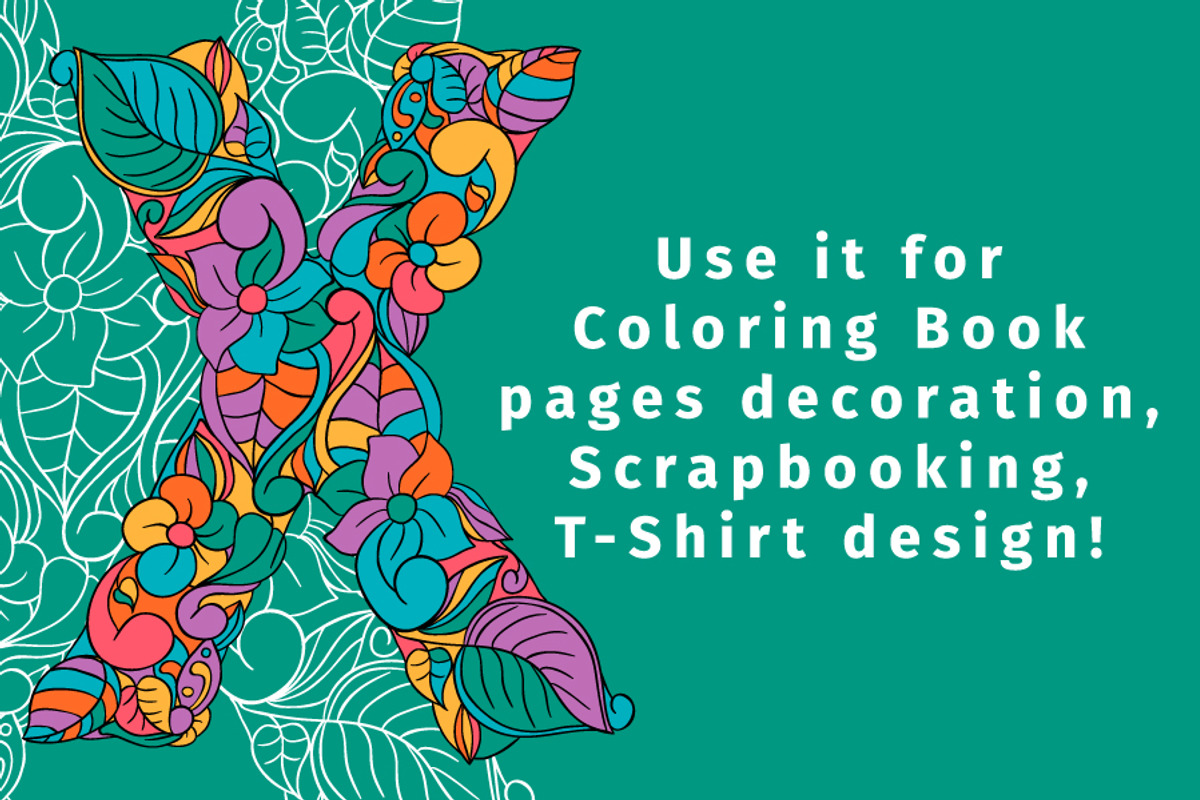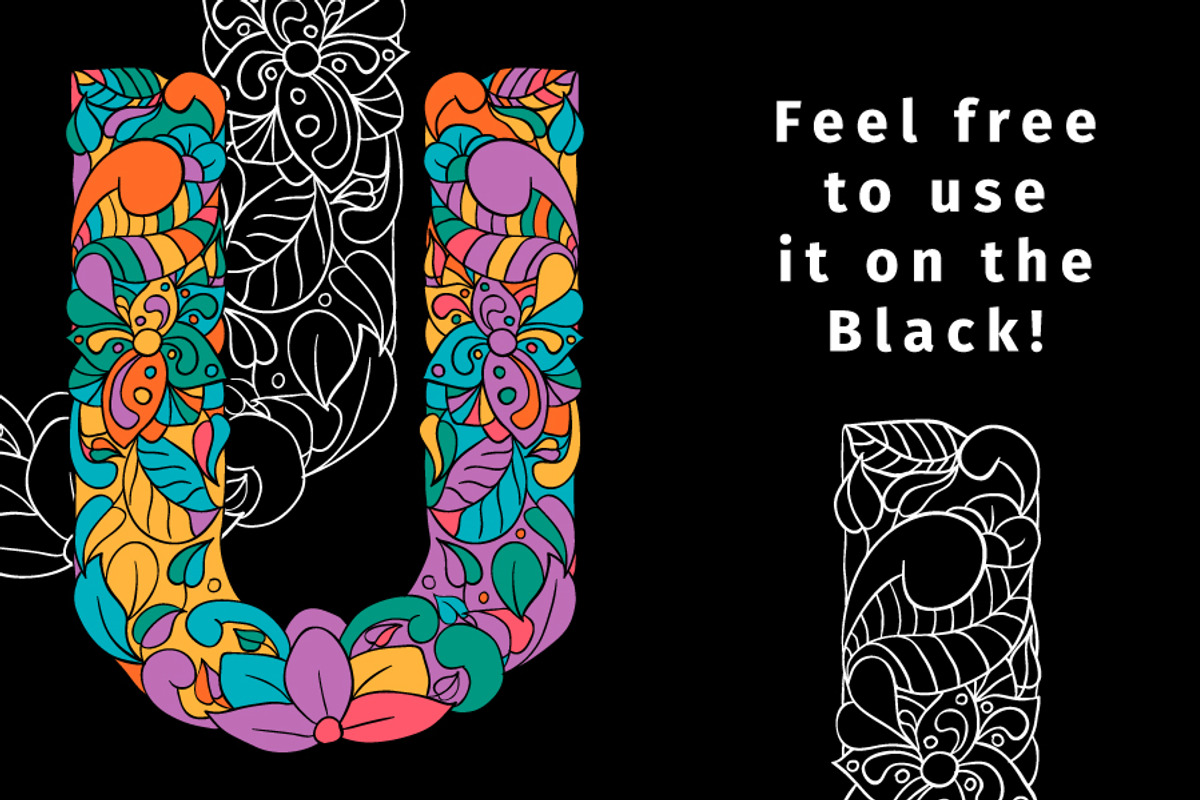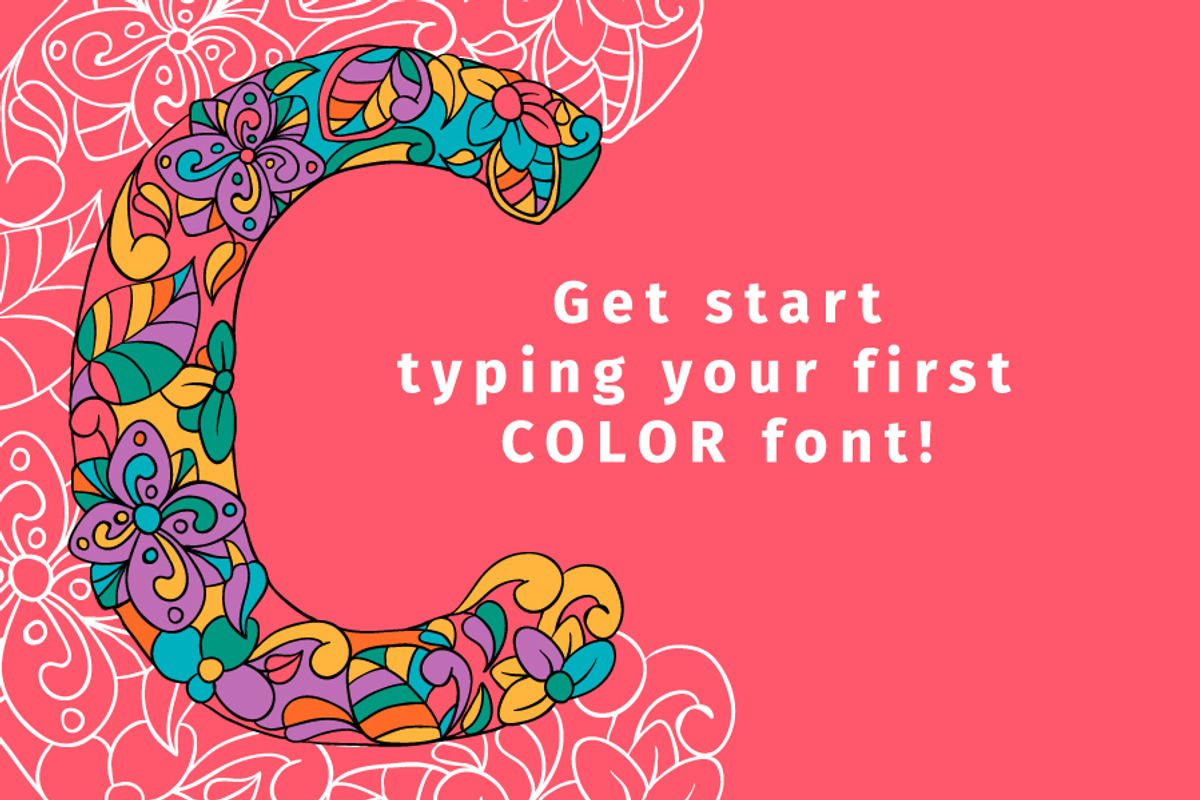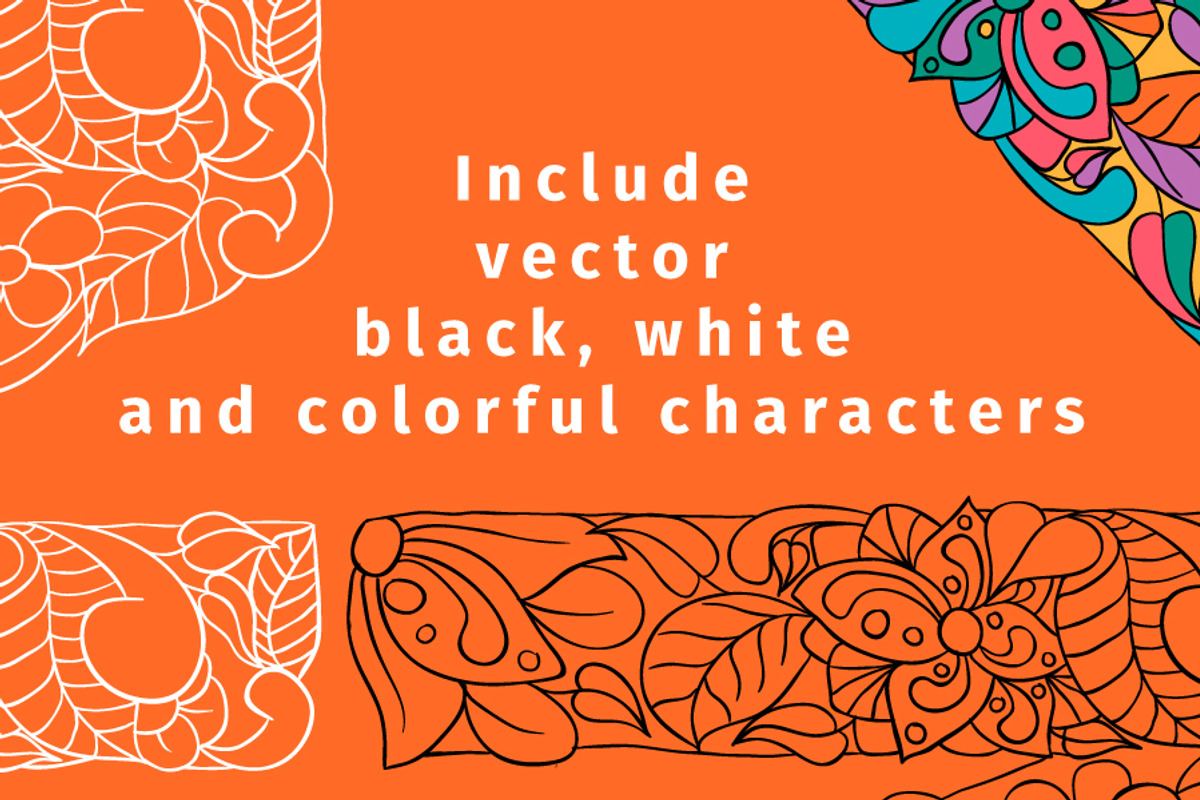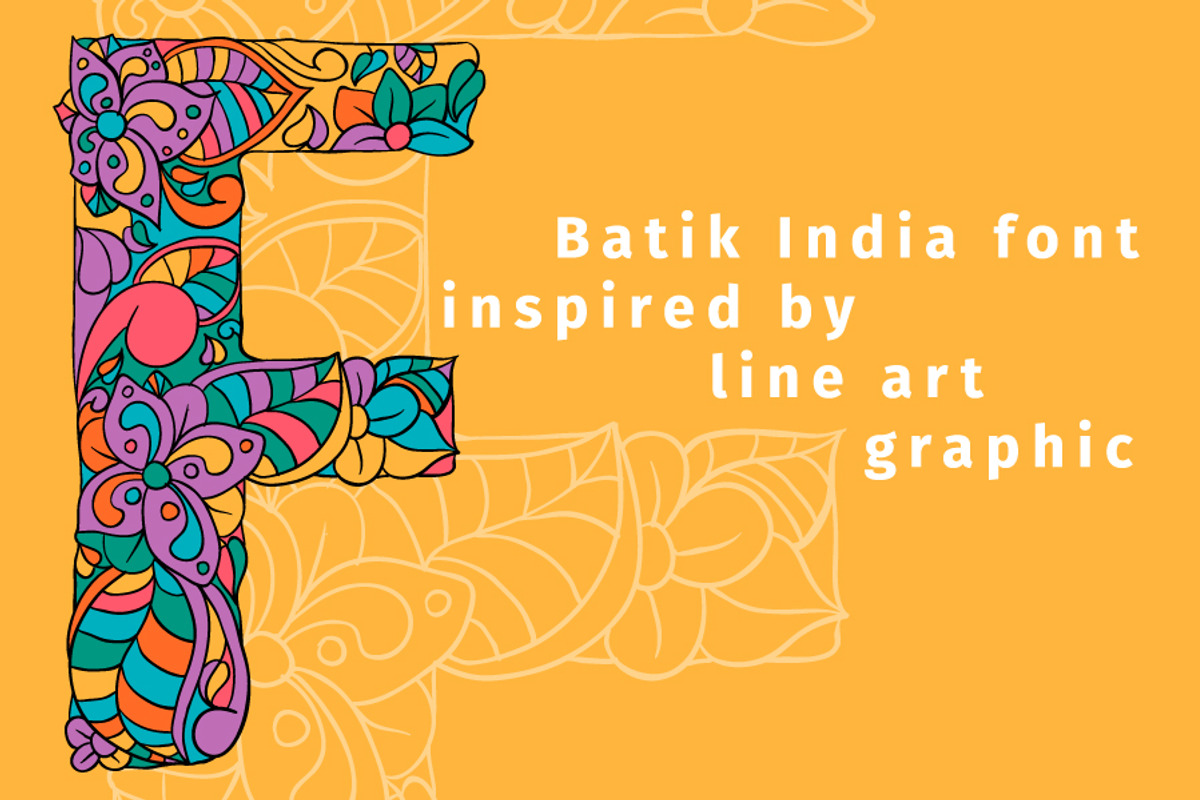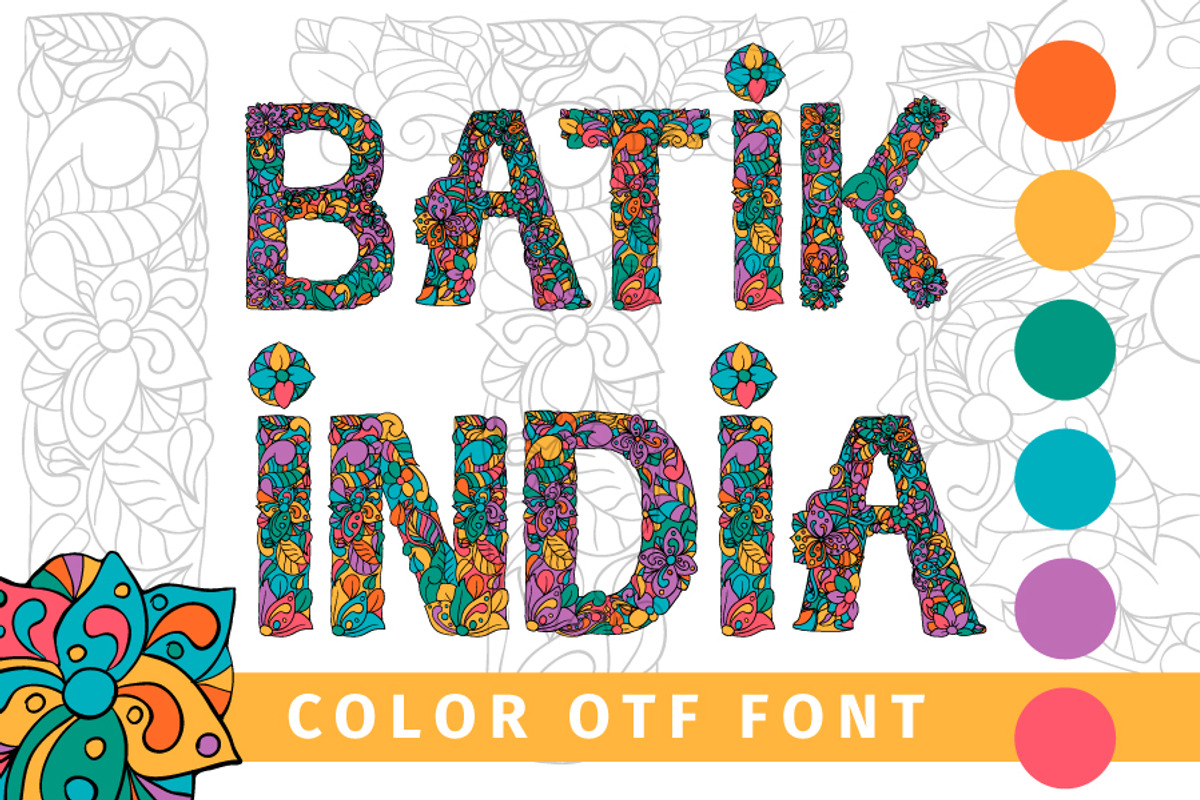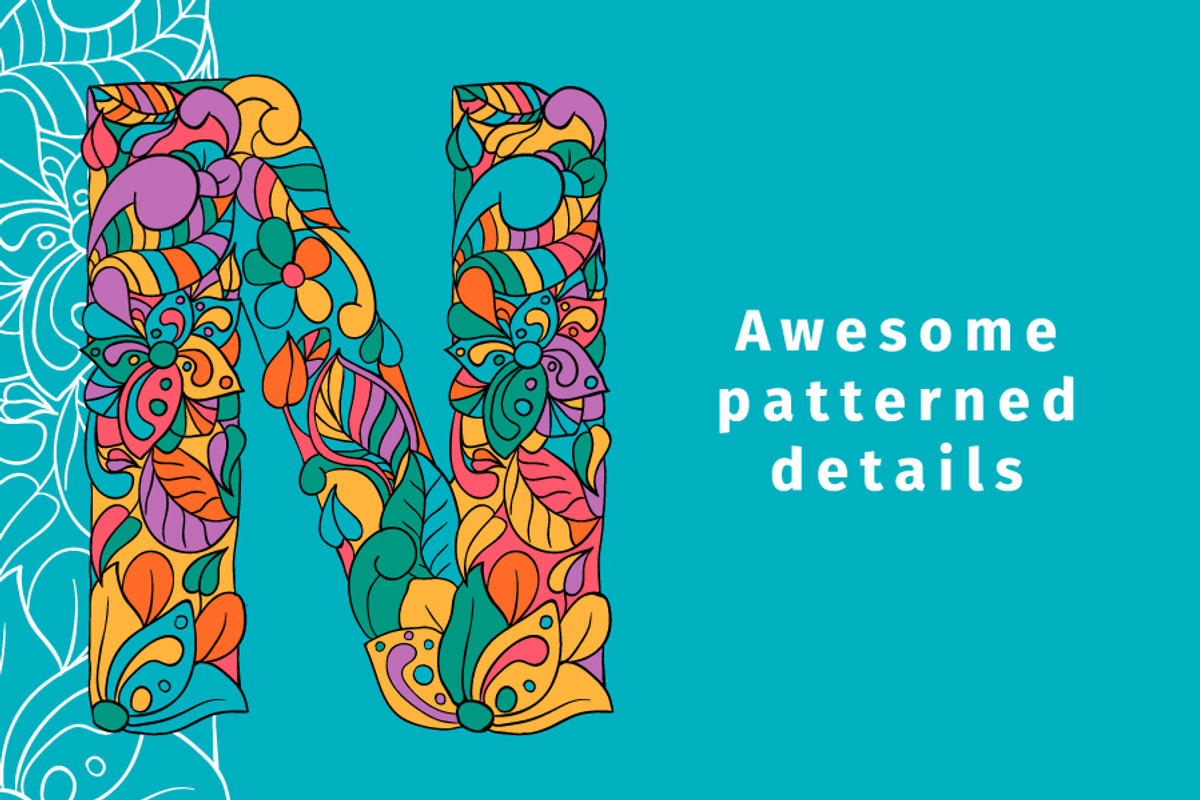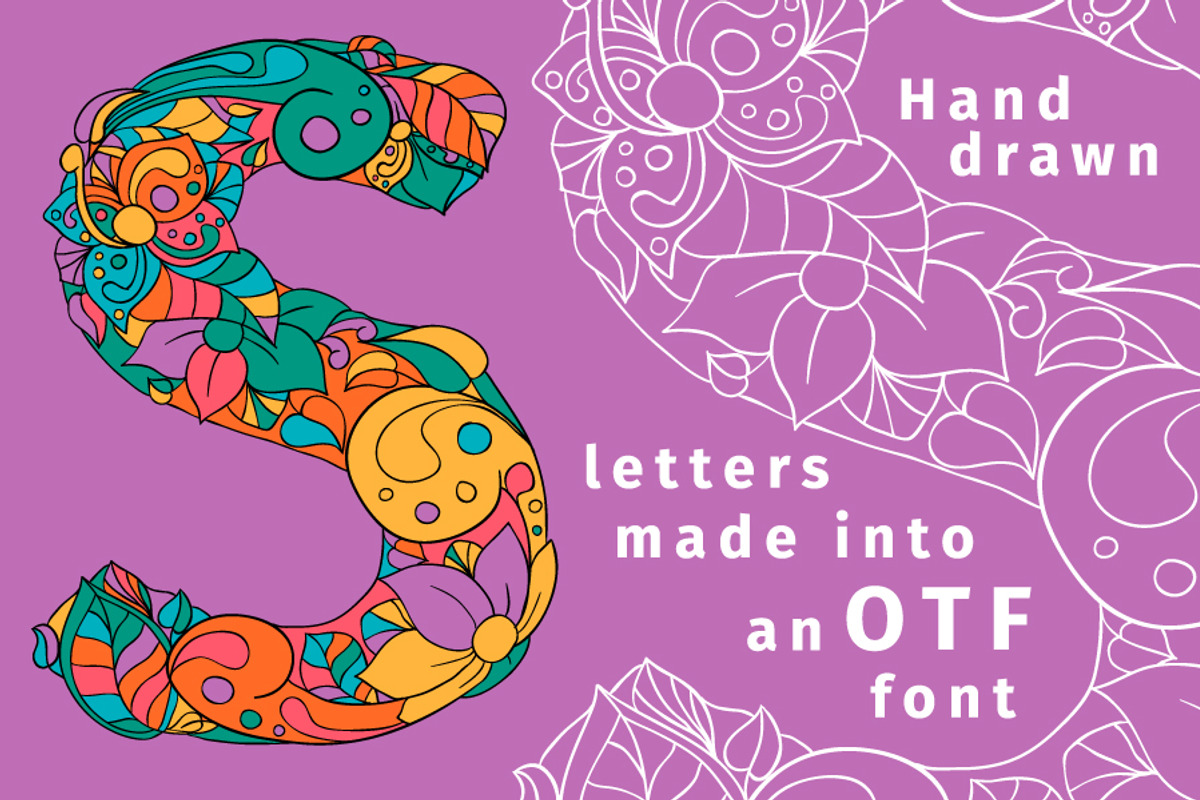
Batik India Color Font
Welcome to my shop! I'm happy to introduce my colorful BITMAP font crafted with hand drawn line art graphic and the Photoshop add-on, Fontself
The letters from this font are drawn by hand then carefully digitized in Adobe Illustrator
Please NOTE: Only Uppercase Letters with and two symbols "!" and "?"